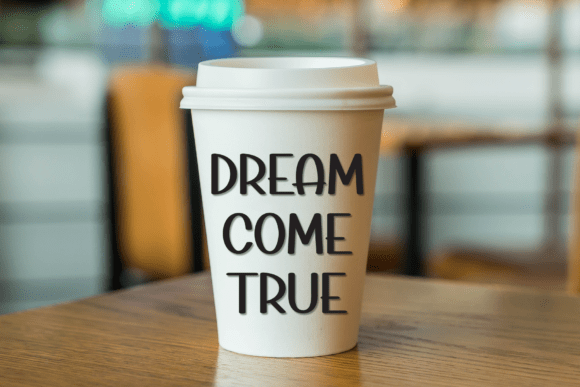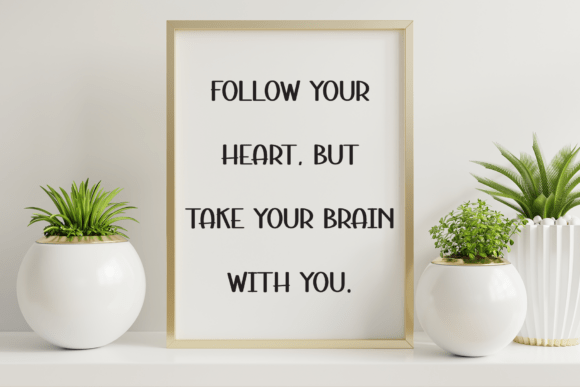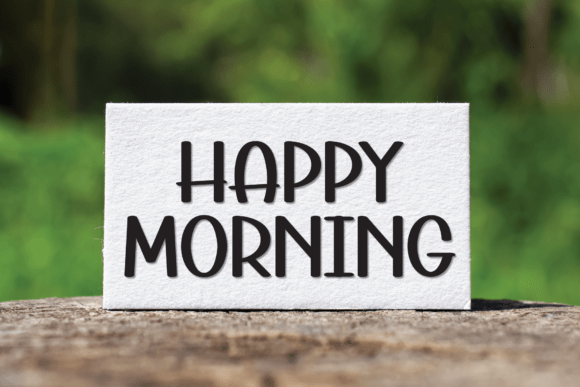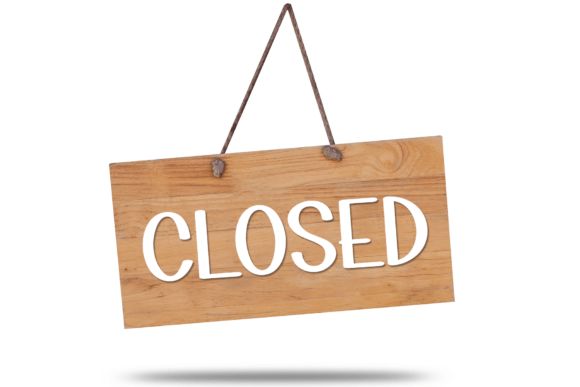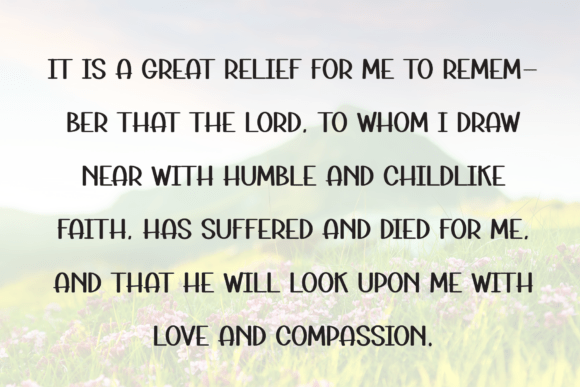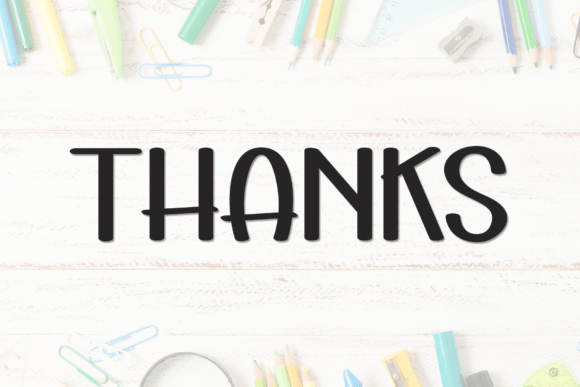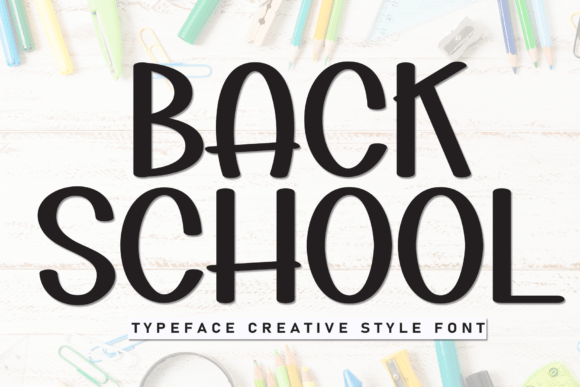
Introducing Back School Font: The Perfect Choice for Back-to-School Designs
Are you looking for a font that captures the essence of a classroom setting while exuding a friendly and modern vibe? Look no further than Back School Font, a delightful display sans-serif that is sure to elevate your back-to-school designs, kids’ products, planners, and teacher resources.
What Makes Back School Font Special?
Back School Font boasts a unique combination of characteristics that make it an excellent choice for designers and crafters. Its condensed rhythm, smooth ovals, and even stroke weight create clean, high-impact headlines that remain readable even at smaller sizes. This makes it perfect for use on posters, worksheets, labels, and social graphics.
A Font that Echoes Classroom Charm
One of the standout features of Back School Font is its lively curves, which echo the classic charm of chalkboard lettering. This gives your designs an instantly recognizable, homespun feel that’s perfect for back-to-school campaigns and kids’ products. At the same time, the modern geometry of the font keeps layouts looking neat and organized, making it a great choice for planners, teacher resources, and other educational materials.
Perfect for Quick Crafts with Cricut or Canva
Back School Font is also an excellent choice for crafters who love working with Cricut or Canva. Its clean lines and smooth curves make it easy to cut out letters and shapes, while its readability ensures that your designs will look great even at smaller sizes. Whether you’re creating custom signs, decorations, or gifts, Back School Font is the perfect choice for quick and easy crafts.
Key Features of Back School Font
- Condensed rhythm: Creates clean, high-impact headlines that stay readable
- Smooth ovals: Adds a touch of warmth and friendliness to your designs
- Even stroke weight: Ensures consistency and balance in your typography
- Lively curves: Echoes the classic charm of chalkboard lettering
- Modern geometry: Keeps layouts looking neat and organized
Design Ideas with Back School Font
So, what can you create with Back School Font? The possibilities are endless! Here are a few ideas to get you started:
- Back-to-school posters: Create eye-catching posters to welcome students back to school
- Kids’ product labels: Add a personal touch to your kids’ products with custom labels
- Teacher resources: Create engaging worksheets, lesson plans, and other educational materials
- Planners and organizers: Design custom planners and organizers for students and teachers alike
- Social graphics: Create shareable social graphics for back-to-school campaigns and promotions
Back School Font is a versatile and charming display sans-serif that’s perfect for designers and crafters looking to add a touch of classroom charm to their work. With its condensed rhythm, smooth ovals, and even stroke weight, this font is sure to elevate your back-to-school designs, kids’ products, planners, and teacher resources. So why wait? Give Back School Font a try today and see the difference it can make in your designs!